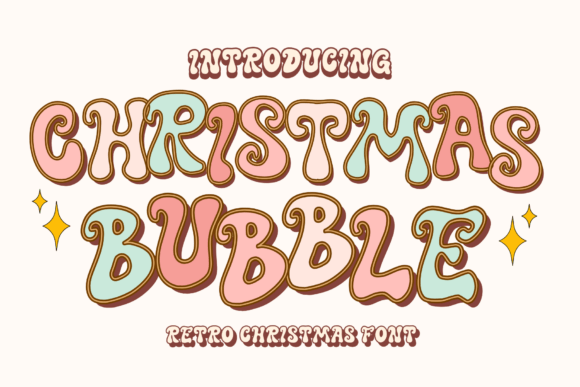
Get Ready to Jingle All the Way with the Christmas Bubble Font
As the holiday season approaches, many of us find ourselves immersed in the joy of creating festive content for our loved ones and fans. There’s something special about crafting a Christmas card or designing a holiday-themed blog post that truly captures the magic of the season. For designers, this time of year is a chance to unleash their creativity and add a touch of whimsy to their work.
That’s where the Christmas Bubble Font comes in – a charming, retro-inspired font duo that embodies the spirit of playfulness and authenticity. Perfect for adding a dash of festive flair to your designs, this font is a must-have for any project, from logos and branding to invitations, greeting cards, and decorations. Whether you’re a seasoned designer or a hobbyist looking to add some holiday cheer to your work, the Christmas Bubble Font is sure to bring a smile to your face and a sparkle to your designs.
Christmas Bubble Font Key Features
- Font Style: A playful, festive font with a bubble-like design, perfect for Christmas-themed projects.
- Unique Characteristics: The Christmas Bubble Font features intricate, swirling patterns and ornaments, making it a standout choice for holiday designs.
Designer Review: Christmas Bubble Font
Overall, I’d say the Christmas Bubble Font is a fun and festive addition to any holiday design project. ✨ It’s a great choice for creating a playful, whimsical atmosphere, especially for cards, invitations, or social media posts.
- Its bubbly, rounded design is perfect for creating a sense of joy and warmth.
- The font’s consistency and legibility make it easy to read, even in smaller sizes.
- The Christmas Bubble Font comes in a variety of weights, from light to bold, giving you plenty of options for different design styles.
However, there are a few limitations:
- The font may not be the best choice for formal or professional designs, as it can come across as a bit too playful.
- The font’s size may become distorted when scaled up or down, which can affect its overall appearance.
- There may be some compatibility issues with certain operating systems or devices, which can limit its use.
Overall, I’d give the Christmas Bubble Font 4 out of 5 stars. It’s a great choice for holiday designs, but it may not be the best fit for every project.
Some popular use cases for the Christmas Bubble Font include:
- Holiday cards and invitations
- Seasonal social media graphics
- Christmas party decorations and signage